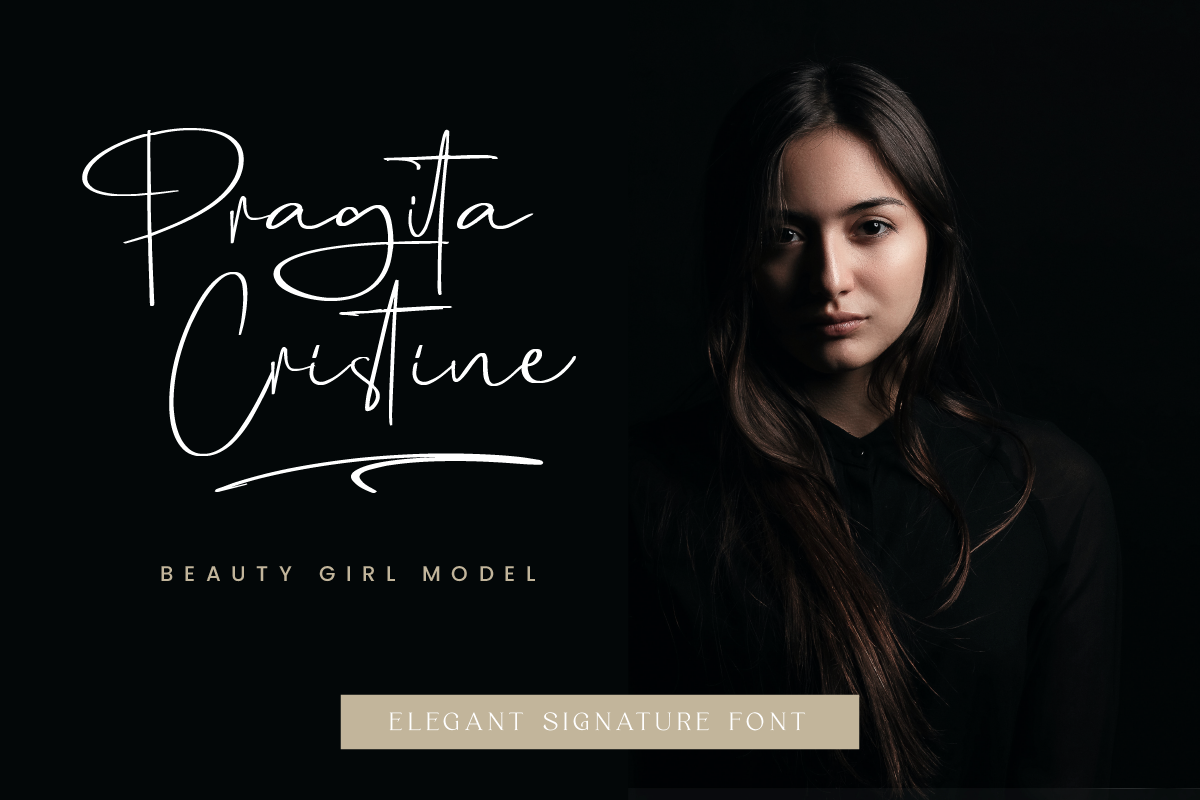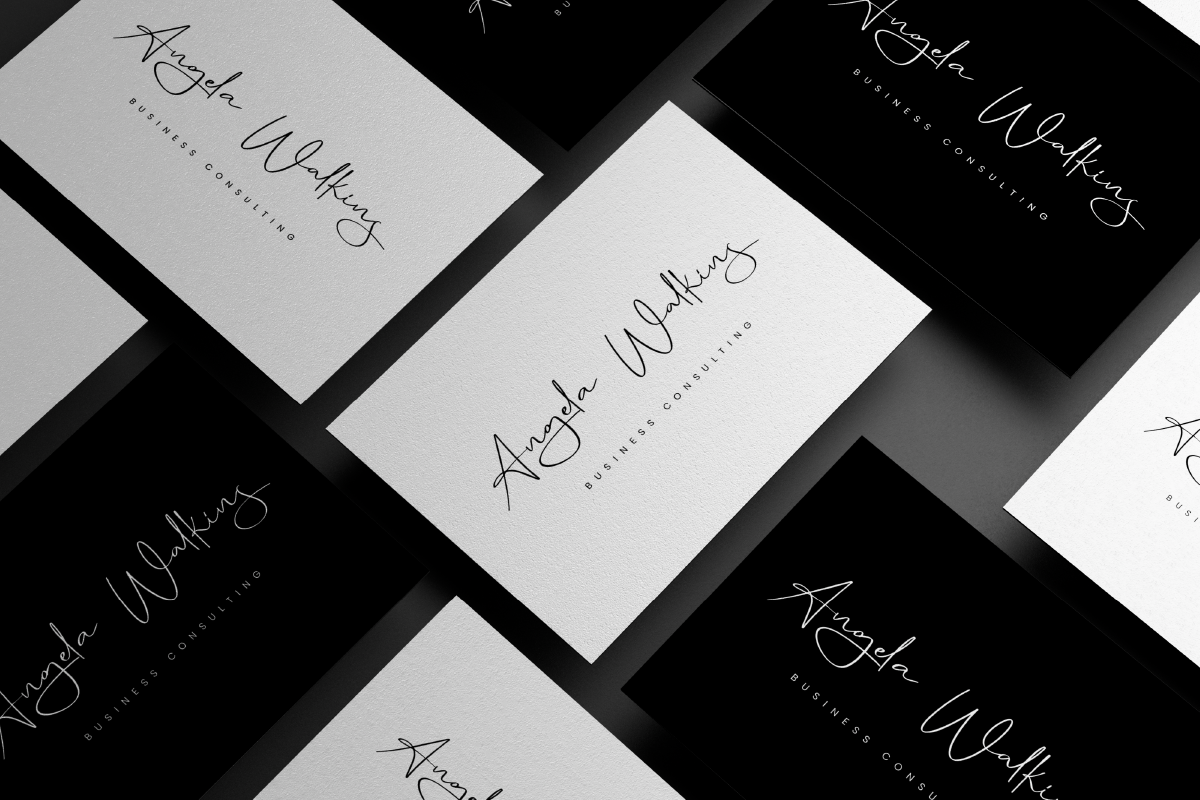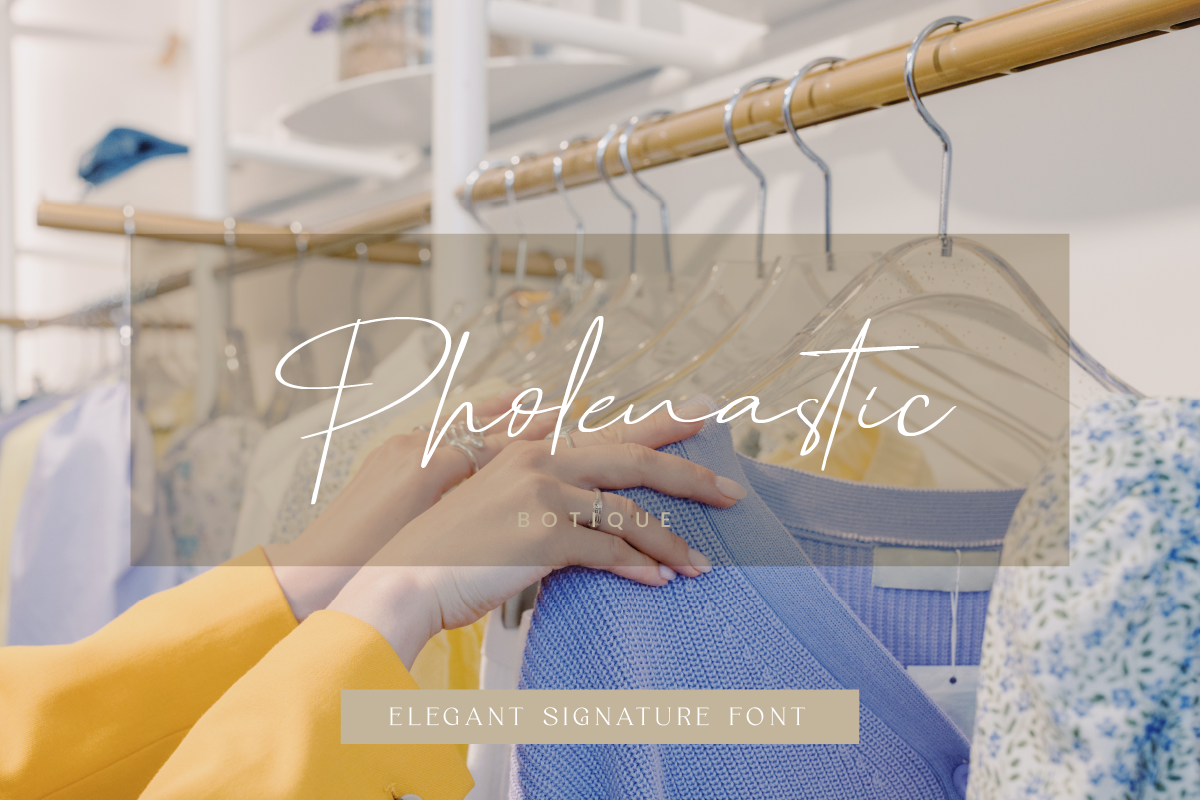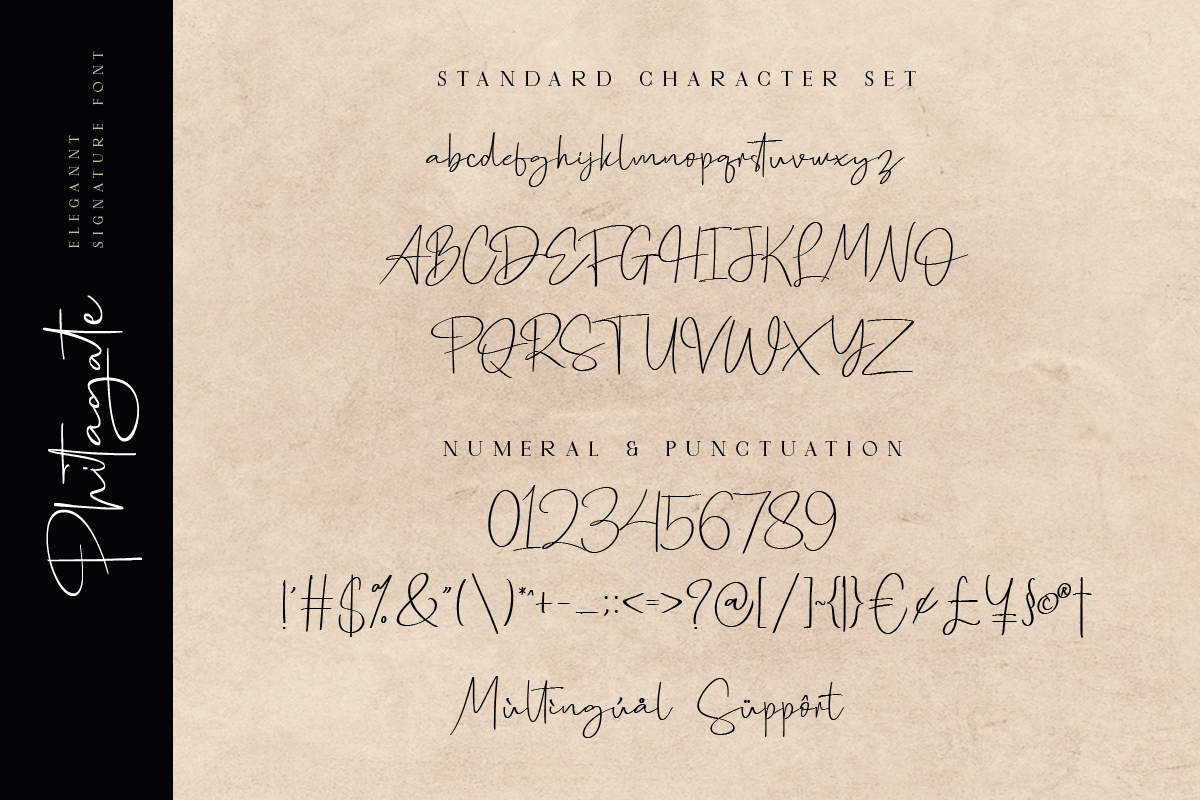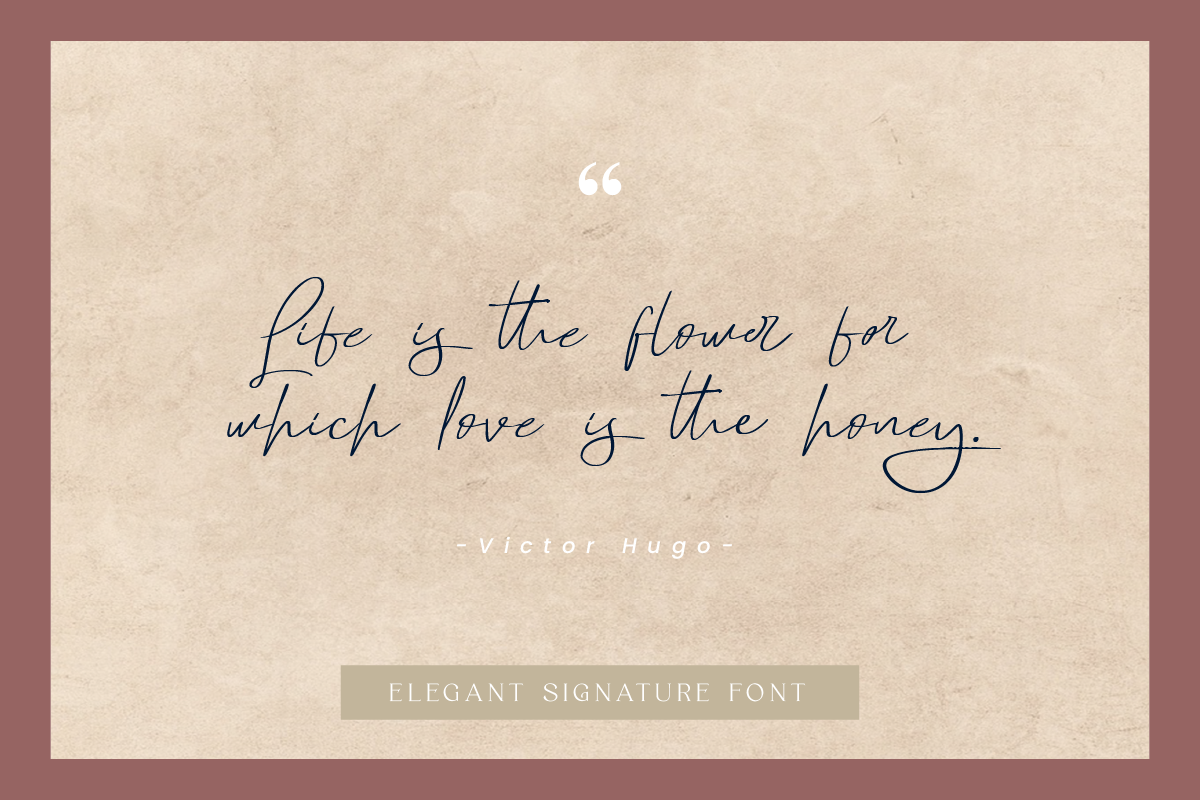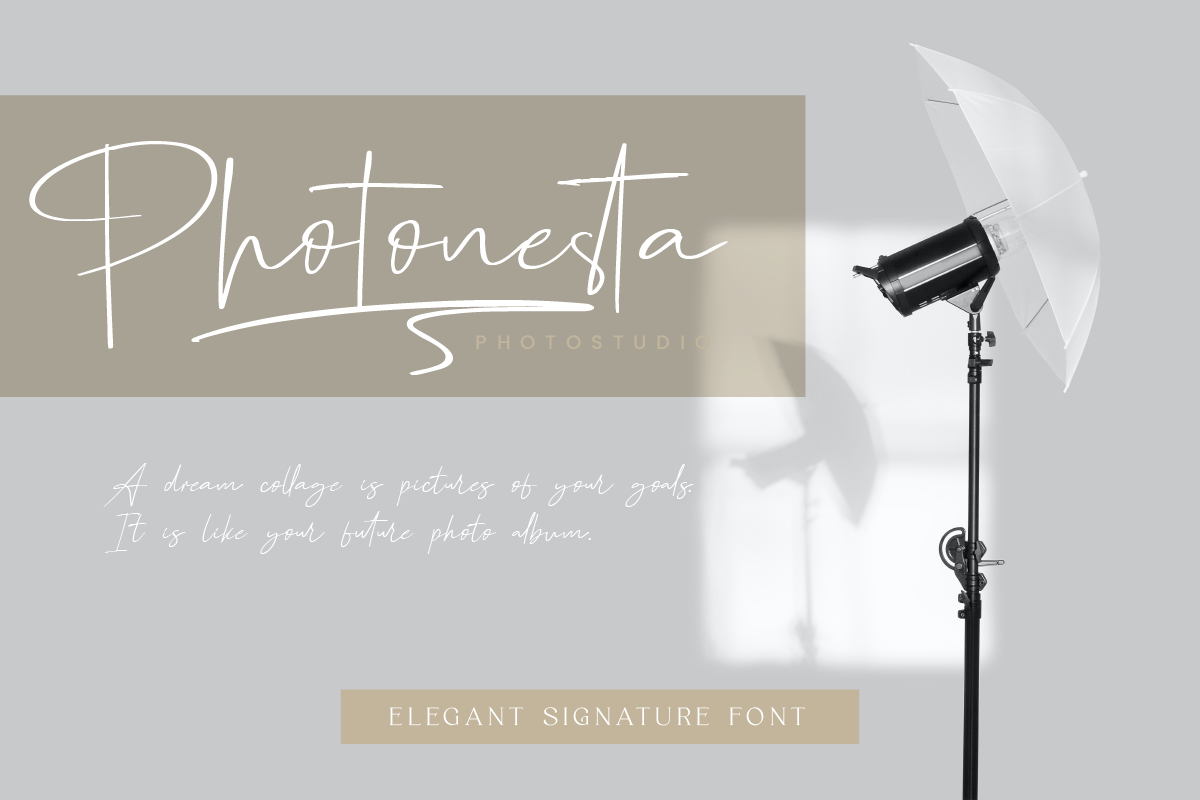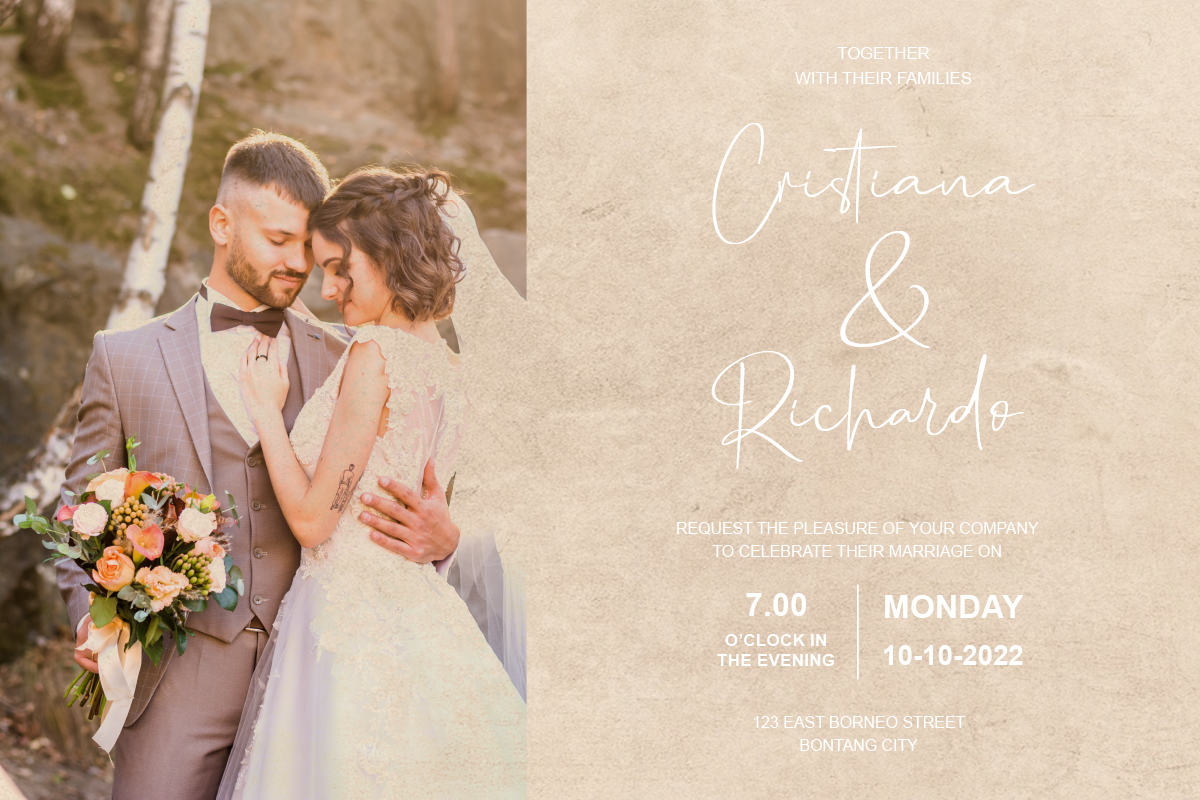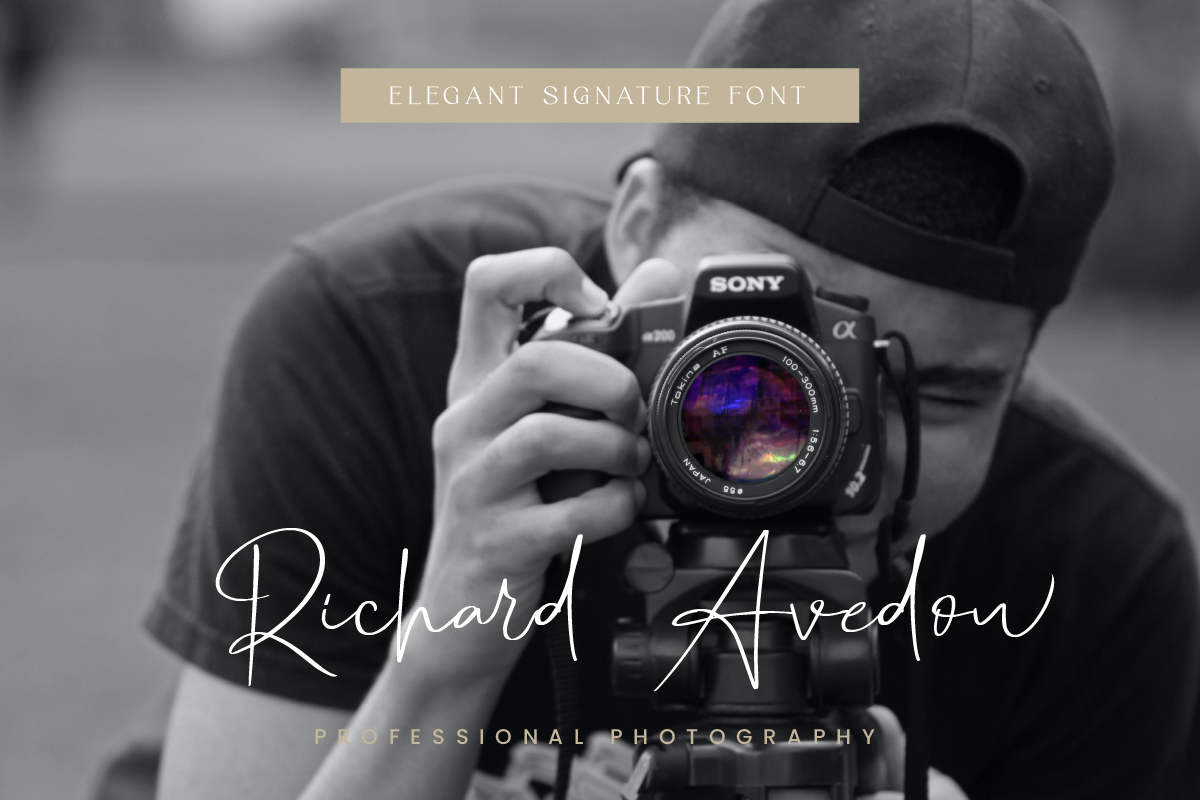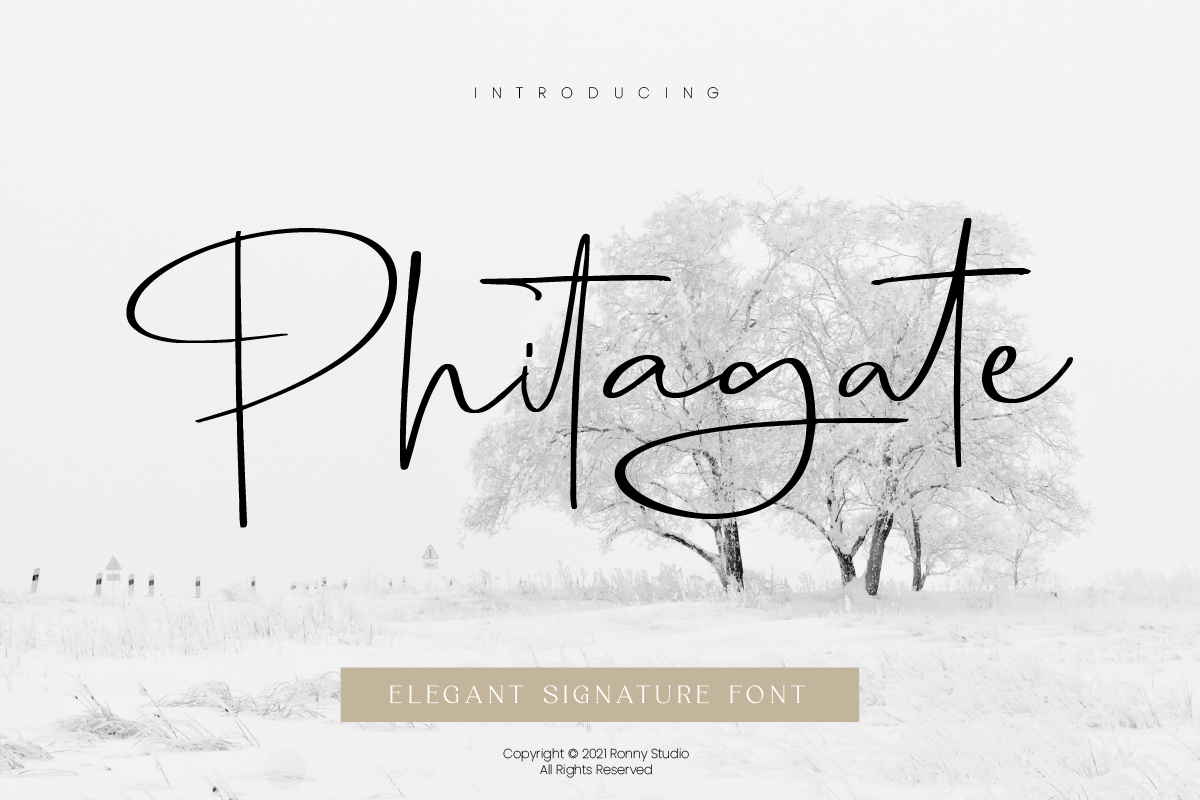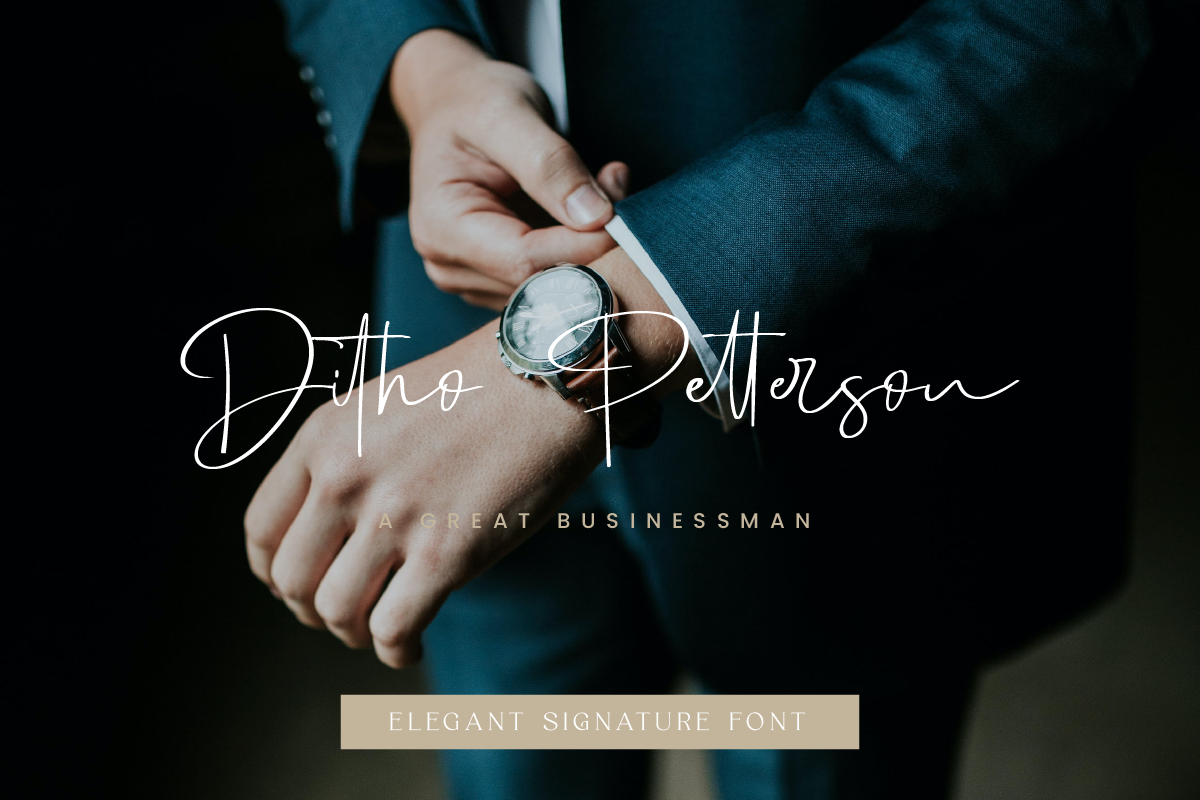
Phitagate Elegant Signature Font
Phitagate is a signature script font with beautiful strokes. This font is impressive and features a clean and elegant font, professionally shaped, and as a result, it will easily match a variety of creations that require a different touch. Add it with confidence to your projects, and you'll love the results. This typeface is perfect for elegant logos, branding, promotions, layout magazines, beauty products, business cards, weddings, quotes, or simply as a stylish text overlay onto any background image.